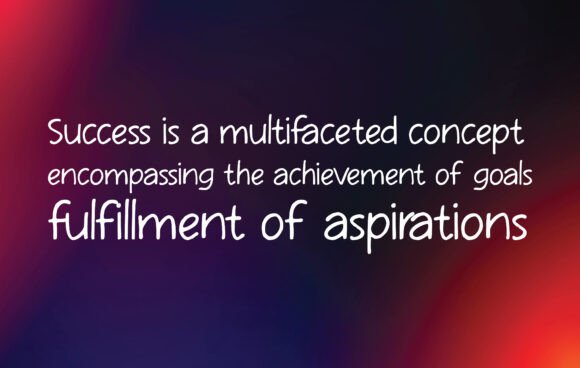
Dorian Font: Elevate Your Creative Ideas with this Lovely Handwritten Font
In the world of typography, fonts play a crucial role in conveying messages, expressing emotions, and creating visual identities. Among the numerous fonts available, Dorian Font stands out as a lovely and beautiful handwritten font that has the potential to take your creative ideas to the highest level. In this article, we’ll explore the features, benefits, and uses of Dorian Font, and why it’s the best choice for creating eye-catching logos, branding, and quotes.
What is Dorian Font?
Dorian Font is a modern, handwritten font designed to add a personal touch to your creative projects. Its unique and elegant style makes it perfect for a wide range of applications, from logo design and branding to social media graphics and quotes. The font’s flowing lines, subtle curves, and varied letterforms create a sense of movement and fluidity, making it a great choice for designs that require a touch of sophistication and elegance.
Benefits of Using Dorian Font
So, why choose Dorian Font for your creative projects? Here are some benefits that make it an excellent choice:
- Unique and Eye-Catching: Dorian Font’s distinctive style sets it apart from other fonts, making it perfect for creating eye-catching logos, branding, and quotes that grab attention.
- Versatile: The font’s versatility allows it to be used in various contexts, from digital designs to print materials, and from formal to informal settings.
- Easy to Read: Despite its elegant and cursive nature, Dorian Font remains highly legible, making it suitable for body text and longer content.
- Customizable: The font’s flexibility allows for easy customization, enabling you to adjust its size, color, and style to fit your design needs.
Use Cases for Dorian Font
Dorian Font’s flexibility and elegance make it suitable for a wide range of applications. Here are some use cases where Dorian Font excels:
- Logo Design: Create stunning logos that showcase your brand’s personality and values with Dorian Font’s unique and memorable style.
- Branding: Establish a strong visual identity for your brand with Dorian Font’s elegant and sophisticated style, perfect for business cards, letterheads, and packaging.
- Quotes and Typography: Add a touch of elegance and sophistication to your quotes, posters, and social media graphics with Dorian Font’s beautiful and flowing lines.
- Digital Designs: Use Dorian Font in digital designs, such as website headers, email newsletters, and social media graphics, to add a personal touch and create a lasting impression.
Tips and Tricks for Using Dorian Font
To get the most out of Dorian Font, here are some tips and tricks to keep in mind:
- Pair with Neutral Backgrounds: Dorian Font’s elegance shines best against neutral backgrounds, allowing the font to take center stage.
- Experiment with Colors: Try out different color combinations to find the perfect match for your design, from bold and bright to soft and pastel.
- Adjust Font Size: Experiment with different font sizes to create visual hierarchy and emphasize key messages.
- Add Texture and Patterns: Add texture and patterns to your design to create depth and interest, but ensure they don’t overpower the font.
In conclusion, Dorian Font is a lovely and beautiful handwritten font that has the potential to elevate your creative ideas to the highest level. Its unique and elegant style, versatility, and ease of use make it the best choice for creating eye-catching logos, branding, and quotes. By following the tips and tricks outlined in this article, you can unlock the full potential of Dorian Font and take your designs to new heights.